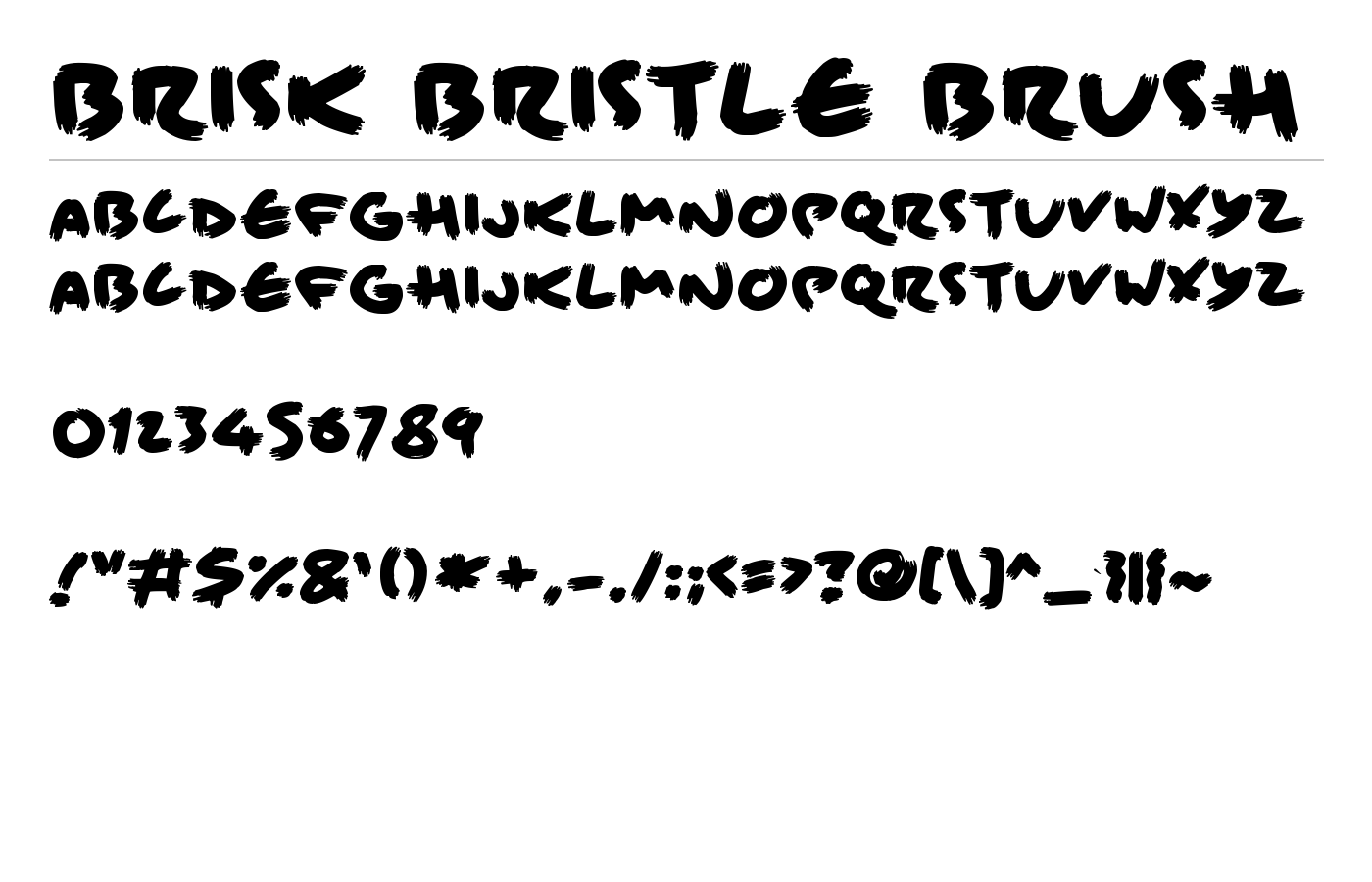
Brisk Bristle Brush is a bold, expressive brush-style font featuring rough, textured strokes that mimic bristle brush marks, giving it a lively and dynamic feel. Its irregular, hand-painted letterforms with strong weight and casual style make it perfect for creative, energetic designs such as posters, logos, and branding where a handcrafted, artistic touch is desired. This font works especially well in attention-grabbing headlines and playful visual projects that need a sense of personality and movement.
Brisk Bristle Brush Font
About Brisk Bristle Brush Font